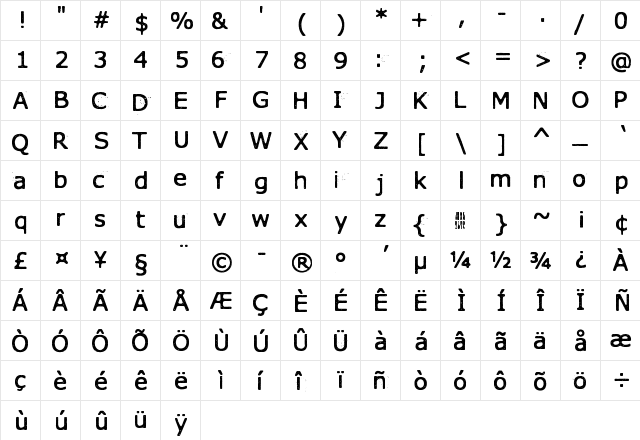
Xmas Year Zero Regular
Design Context for Xmas Year Zero Typeface
Xmas Year Zero offers clean, dependable letterforms without strong stylistic allegiance, making it a practical choice for designers who need flexibility.